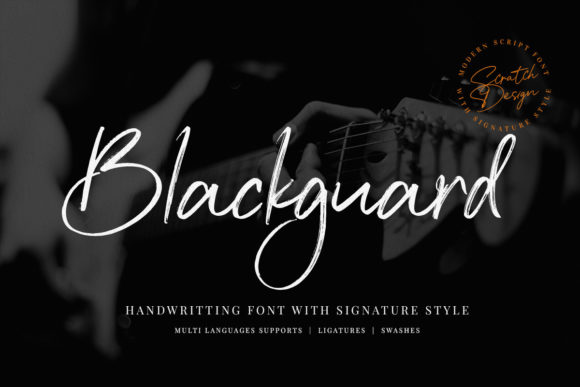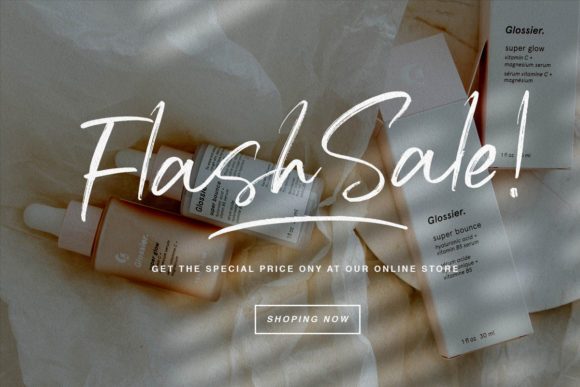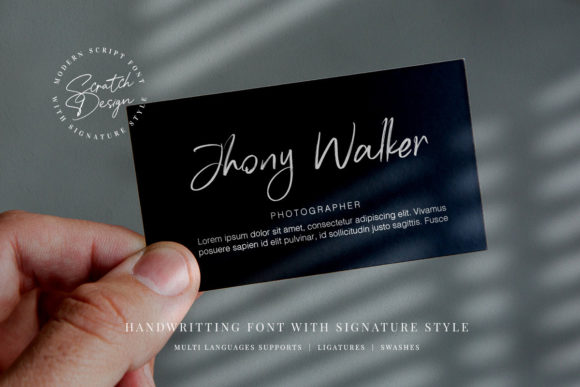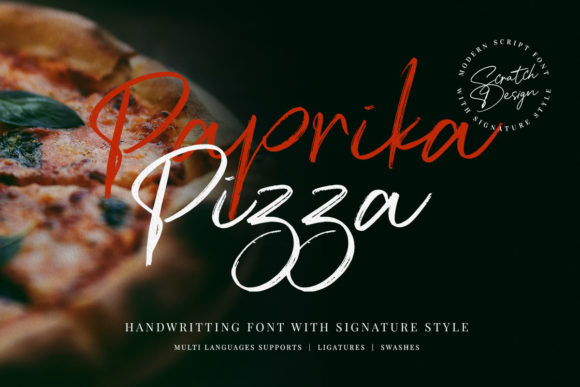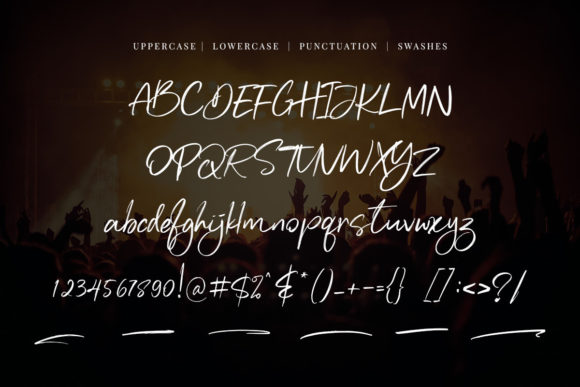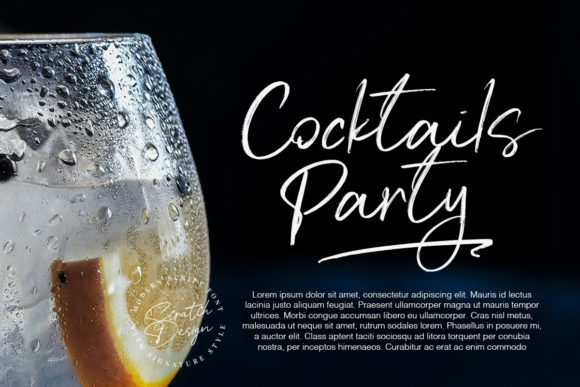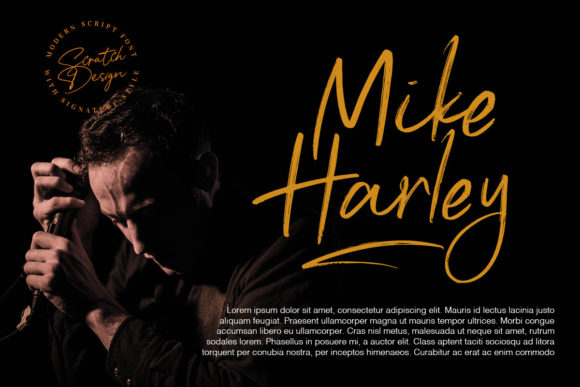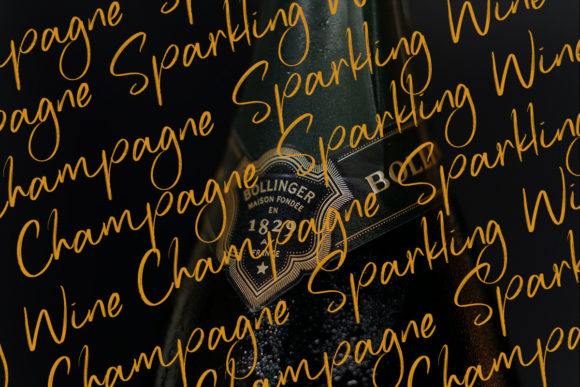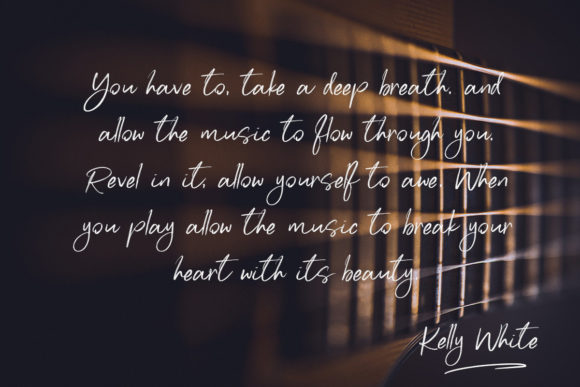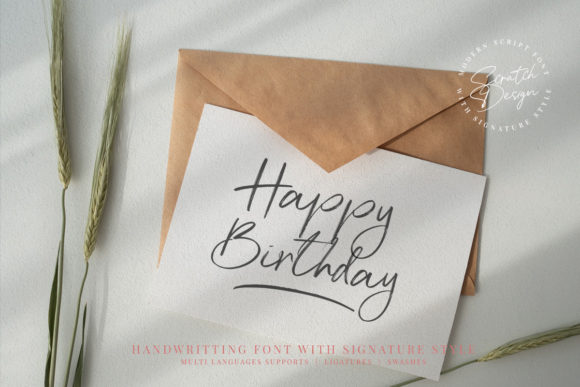
Blackguard Font
About Blackguard Font
Blackguard is a modern and stylish handwritten font. It will look outstanding in any design concept, whether it’s being used on colorful backgrounds or as a headline in the minimalist background!